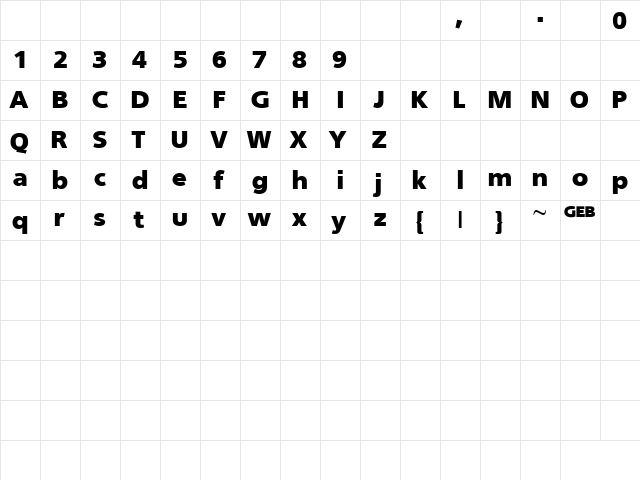
TQF_FruitfulBlack Regular
Design Context for TQF_FruitfulBlack Typeface
TQF_FruitfulBlack is a composed and adaptable typeface that performs quietly and consistently across a wide range of design contexts.
Pro Tip: Pair TQF_FruitfulBlack with a font of contrasting weight or personality to build a more expressive typographic hierarchy.